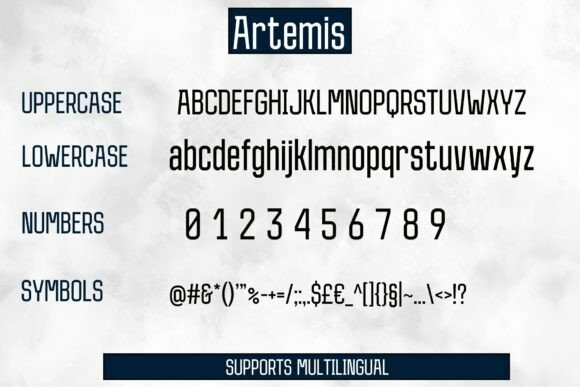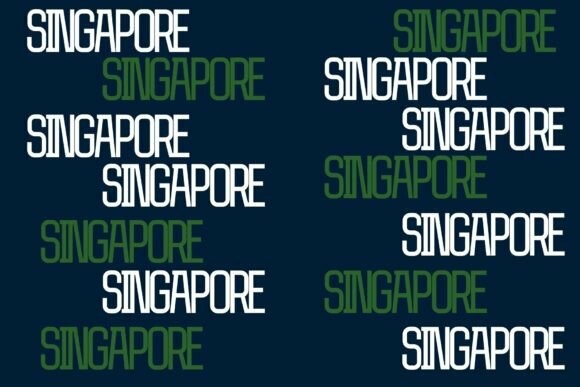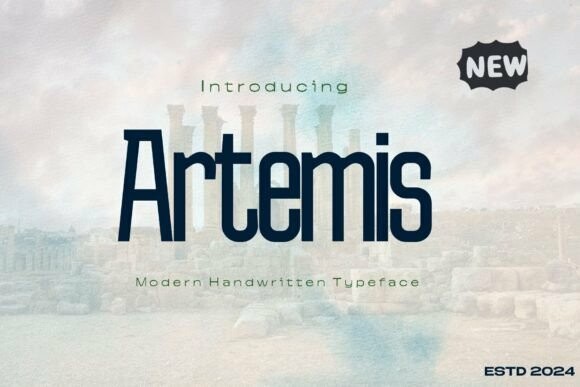
Artemis Typeface
Designer: nickbeuahr
Artemis Typeface is a modern font designed for tall, striking letters. It’s perfect for making headlines stand out. The letters are sleek and stylish, giving a contemporary feel to any text. Great for posters, advertisements, and other designs that need to catch the eye.